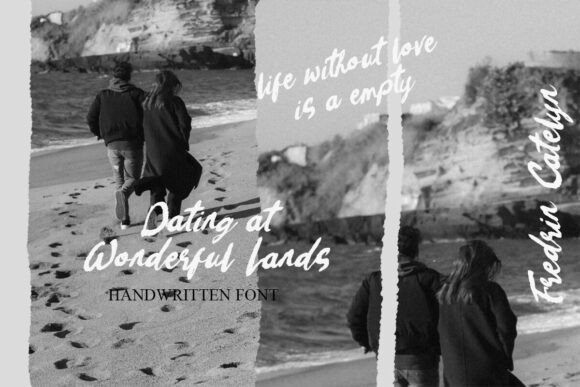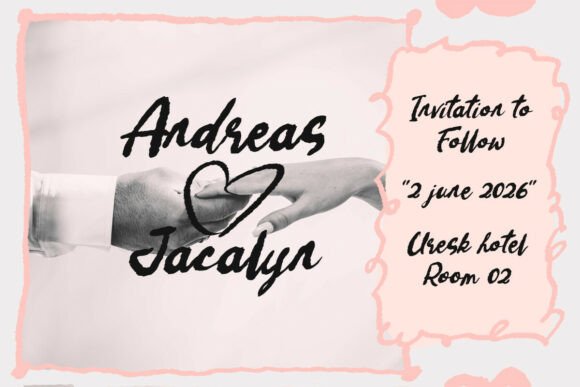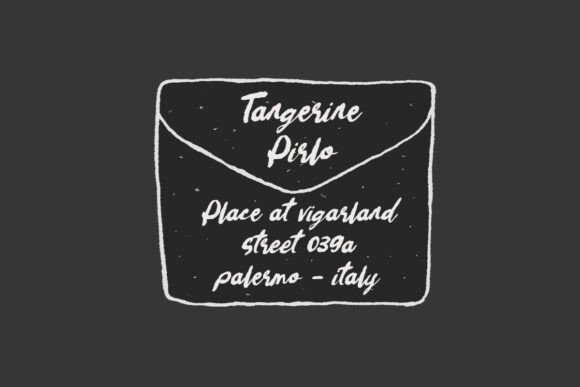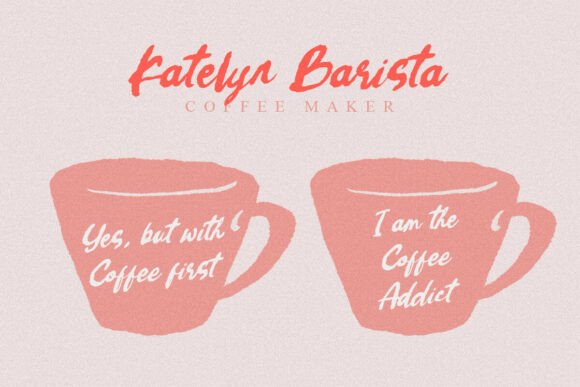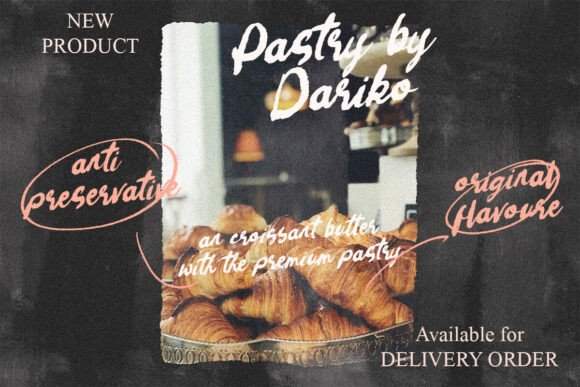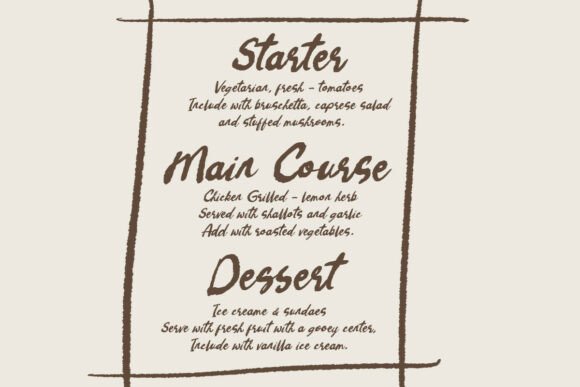
Diorline Font: Adding a Touch of Humanity to Your Designs
In the world of typography, fonts play a crucial role in conveying the tone and personality of a design. For designers and crafters looking to add a touch of humanity to their projects, Diorline font is an excellent choice. This rough handwritten font combines raw, textured charm with clear and legible readability, making it perfect for a wide range of design applications.
The Unique Charm of Diorline Font
Diorline font stands out for its unique blend of imperfect charm and bold clarity. Each letter feels like a natural human touch, a little messy, and full of personality, but easy to read. This font is not about precision or perfection; it’s about bringing a sense of warmth and authenticity to your designs. Whether you’re working on posters, wedding designs, branding, calligraphy logos, display products, invitation designs, apparel, packaging, social media, or anywhere you want to add a human touch, Diorline font turns ordinary text into something playful and memorable.
Key Features of Diorline Font
• Rough Handwritten Style: Diorline boasts a natural, handwritten look that feels personal and relatable.
• Textured Charm: The font has a raw, textured quality that adds depth and interest to any design.
• Clear Readability: Despite its rough texture, Diorline maintains clear and legible readability, making it suitable for both headings and body text.
• Versatility: This font is incredibly versatile and can be used across various design projects, from artistic and expressive endeavors to more commercial applications.
• Human Touch: Diorline adds a human element to your designs, making them feel more approachable and engaging.
Applications of Diorline Font
Diorline font’s versatility is one of its most appealing qualities. Here are some of the many ways you can use Diorline to elevate your designs:
• Posters: Create eye-catching posters with a personal touch that draws viewers in.
• Wedding Designs: Add a romantic and whimsical feel to wedding invitations, programs, and decor.
• Branding: Use Diorline to create a unique and memorable brand identity that stands out from the crowd.
• Calligraphy Logos: Combine Diorline with calligraphy elements for a truly distinctive logo.
• Display Products: Make product labels and packaging more appealing with a font that tells a story.
• Invitation Designs: Whether it’s a birthday, graduation, or any other celebration, Diorline can make your invitations special.
• Apparel: Design t-shirts, hoodies, and other apparel with a font that adds character to your message.
• Packaging: Stand out on store shelves with packaging that has a personal and artistic touch.
• Social Media: Use Diorline in your social media graphics to make your content more engaging and relatable.
Why Choose Diorline Font?
In a digital age where designs can often feel generic and impersonal, Diorline font offers a refreshing alternative. Its unique blend of texture, personality, and readability makes it an excellent choice for designers and crafters looking to add a human touch to their work. With Diorline, you can:
• Create designs that feel more personal and engaging.
• Add a touch of nostalgia and artistic flair to your projects.
• Stand out in a crowded design landscape with a truly unique font.
• Enhance the emotional connection between your design and its audience.
Diorline font is more than just a typeface; it’s a way to infuse your designs with a sense of humanity and personality. Its rough, handwritten texture and clear readability make it perfect for a wide range of applications, from artistic projects to commercial designs. By choosing Diorline, you’re opting for a font that brings warmth, authenticity, and memorability to your work. So, if you’re looking to add a little charm and character to your designs, consider giving Diorline font a try. It’s sure to make your projects stand out and leave a lasting impression on your audience.